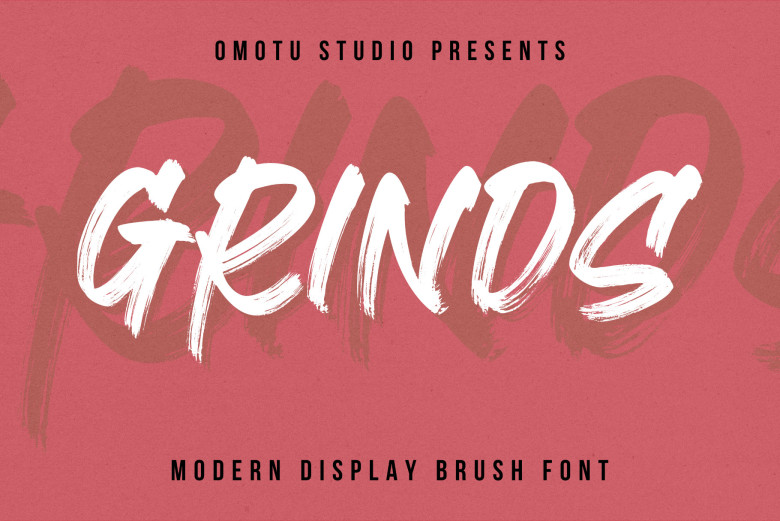
Grinds Font
GRINDS! Is a handwritten display brush font with all capital letters. Ideal for branding, logotypes, apparel such as T shirts and Hoodies as well as product packaging quotes as well as flyers, posters, book covers or advertising purposes.
Grinds Brush Script Font